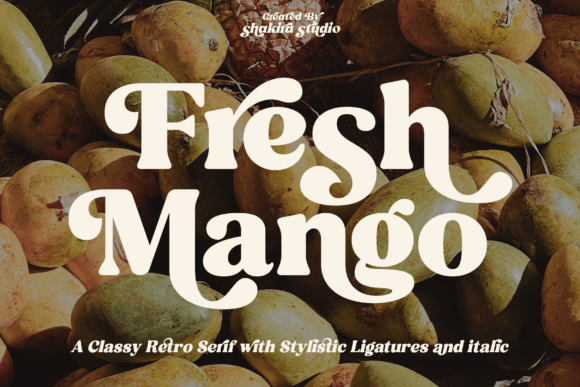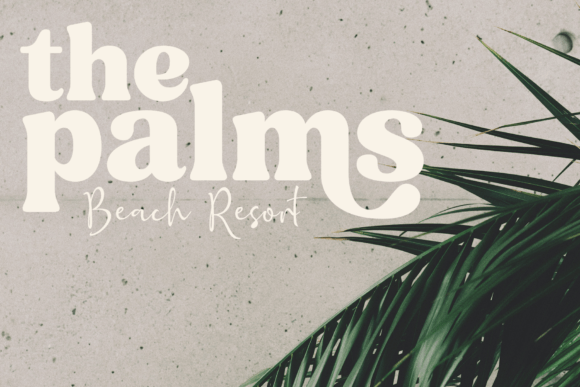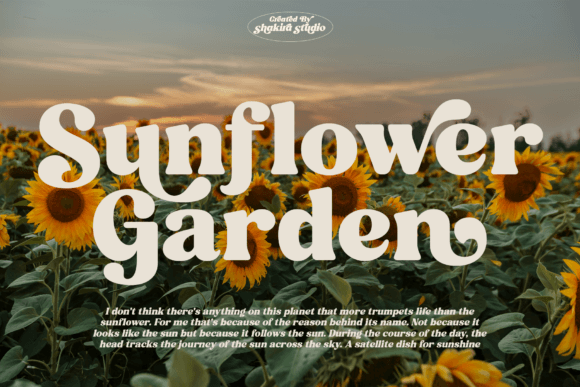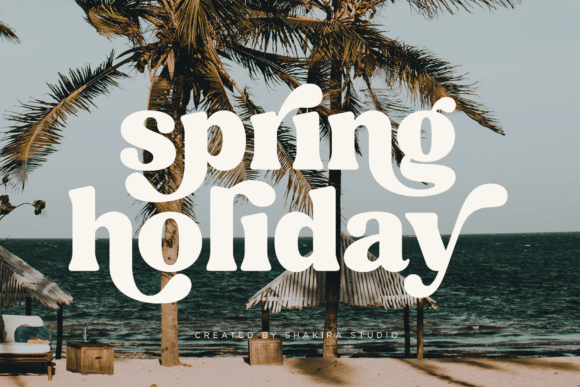
Fresh Mango Font: Groovy Retro Serif for Branding & Headlines
About the Fresh Mango Font
The Fresh Mango Font offers a perfect balance of form and function for your design needs. Fresh Mango is a Retro Serif Font. Create bold, gorgeous headlines and elegant designs with a vintage flair. Its contrasting lines and curved terminals give a sleek, elegant look to logos, holiday cards, wedding invitations, quotes, advertisements, and more.
Fresh Mango’s retro-serif design excels in headlines, short text blocks, and display applications like posters and logos. Its vintage flair makes it ideal for branding projects evoking nostalgia or classic elegance, particularly in food and beverage, fashion, or lifestyle sectors. Avoid using it for body text or lengthy paragraphs; the strong contrast might hinder readability.
The font’s personality is sophisticated yet playful. For a balanced pairing, consider pairing it with a clean sans-serif like Montserrat for body copy, or a playful script font like Great Vibes for added textural contrast. A geometric sans-serif such as Futura would provide a modern counterpoint, enhancing the vintage feel of Fresh Mango.
Using Fresh Mango effectively requires careful consideration of context. Its bold character demands visual breathing room; overwhelming it with too much text or complex imagery will diminish its impact. Because of this, it is not ideal for UI projects or contexts requiring high levels of text readability.
Fresh Mango Font Usage Examples
Fresh Mango Font Example